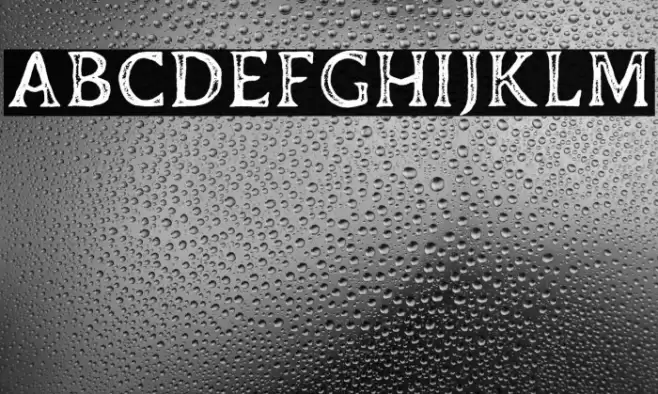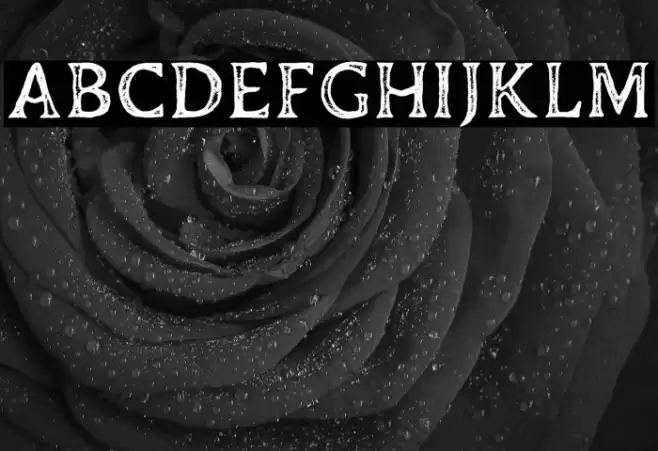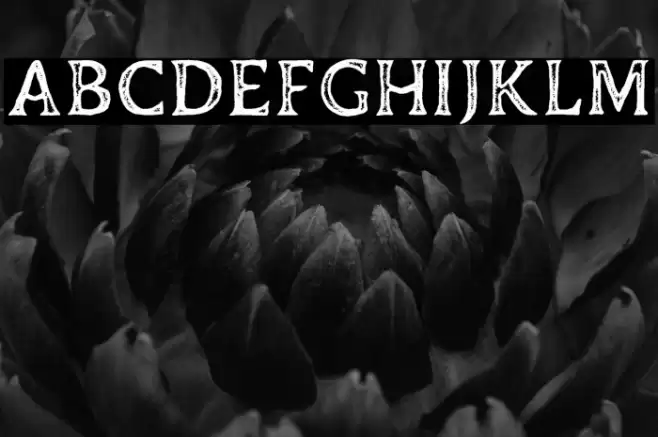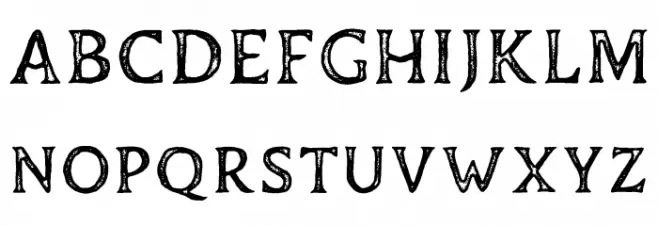
Duskey Free Stamp Font
Duskey Free Stamp Description
This font features a rugged, distressed appearance, reminiscent of vintage rubber stamps. The uppercase letters are bold and slightly irregular, giving a handcrafted feel. The texture within each character adds a unique, worn-out look, making it ideal for projects that require a rustic or retro aesthetic. The font's design is consistent across all uppercase letters, maintaining a balance between readability and artistic flair. The absence of lowercase letters and numerals suggests a focus on decorative uses rather than extensive text applications.
A rugged, distressed font with a vintage stamp-like appearance from Uncategorized fonts.
- Font: Duskey Free Stamp
- Proposed Projects: Ideal for vintage-themed posters, logos, and branding materials that require a rustic or handcrafted look.
- Overall Style: Vintage
- Use Case: Logos, Headlines, Posters